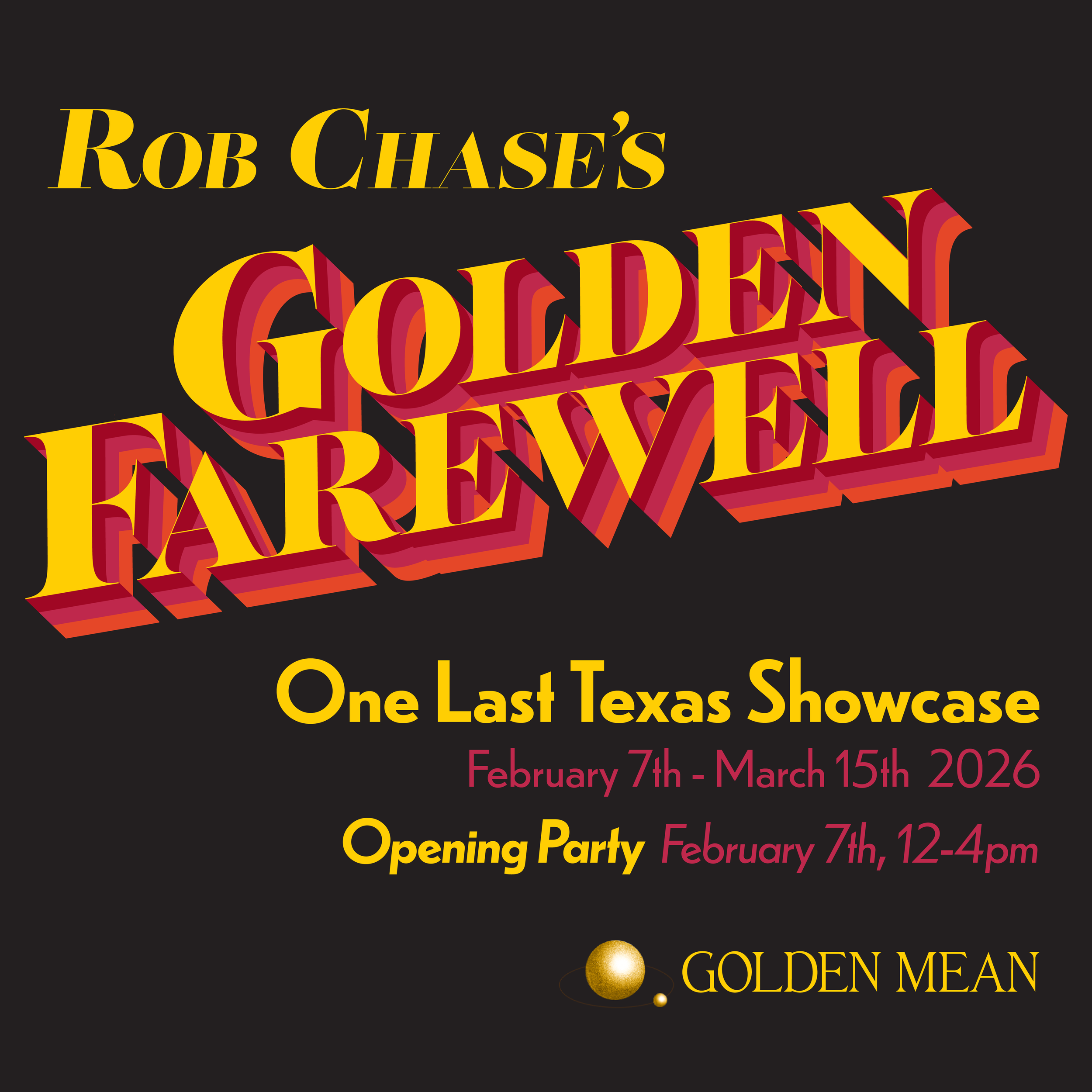
Golden Mean is an art gallery and vintage boutique in Austin, TX which has hosted me as a featured artist on several occasions. I designed this flyer as a social media promotion of my last showcase before moving to New York, seeking to evoke a colorful mid-century in line with Golden Mean’s overall aesthetic.